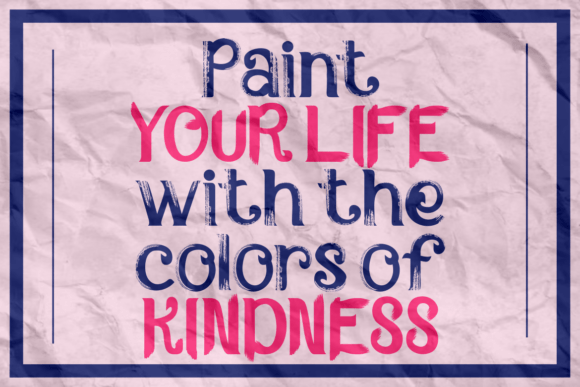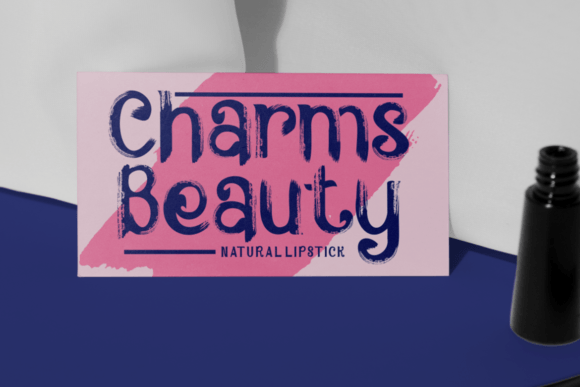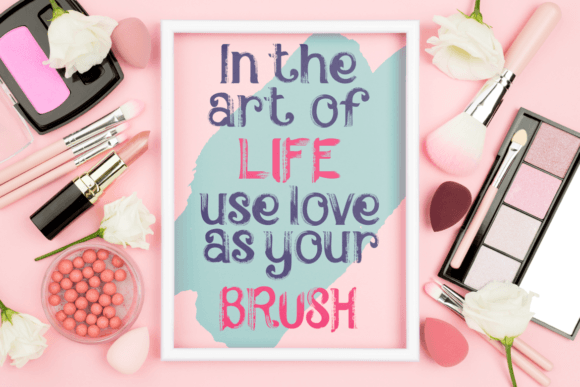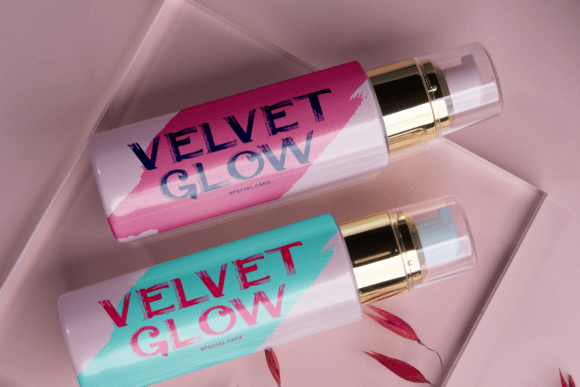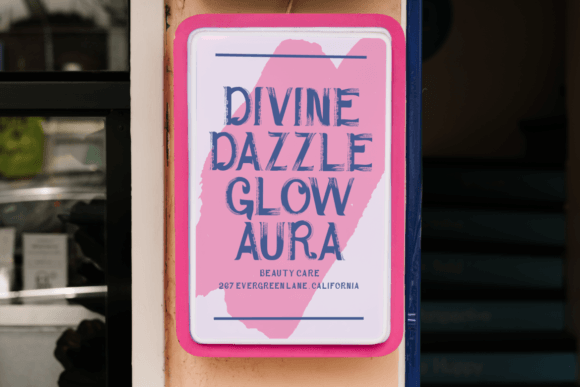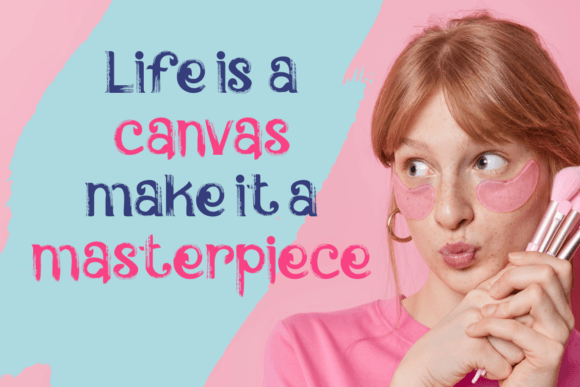
Unleash Your Creativity with Brush Blitz Font
Are you tired of using the same old fonts that lack personality and flair? Look no further than Brush Blitz – Brush Font, a typeface that embodies the spirit of artistic freedom. This font is not just a set of characters; it’s a toolkit for expression, designed to inject life and movement into your projects. With its bold, textured strokes that echo the dynamism of brushwork, Brush Blitz is perfect for those who want their words to stand out with an authentic, handcrafted feel.
The Power of Brush Blitz
Brush Blitz is a font that dances across the page, making it ideal for a variety of design projects. Its unique, handcrafted aesthetic makes it perfect for:
- Logos that need to make an impact: With its bold, eye-catching strokes, Brush Blitz is sure to grab attention and leave a lasting impression.
- Branding that dares to be different: If you’re looking for a way to stand out from the crowd and showcase your brand’s personality, Brush Blitz is the perfect choice.
- Crafting that requires a personal touch: Whether you’re designing handmade cards, invitations, or packaging, Brush Blitz adds a touch of warmth and humanity to your projects.
Whether you’re a designer, crafter, or DIY enthusiast, Brush Blitz offers endless creative possibilities. Use it to:
- Create stunning invitations: Add a personal touch to your invitations and make them truly special with Brush Blitz.
- Design eye-catching packaging: Make your products stand out on store shelves with bold, eye-catching packaging that showcases your brand’s personality.
- Craft inspiring posters: Use Brush Blitz to create posters that shout from the rooftops and grab attention.
Beyond Traditional Design
Brush Blitz is not just limited to traditional design projects. It’s also perfect for:
- Business communications that need a touch of humanity: Add a personal touch to your business communications and make them more relatable with Brush Blitz.
- Greeting cards that convey warmth: Create heartfelt greeting cards that speak from the heart with Brush Blitz.
- Children’s books that inspire imagination: Use Brush Blitz to create engaging and interactive children’s books that inspire creativity and imagination.
Magazine Layouts and More
Brush Blitz is also perfect for magazine layouts, adding a touch of personality and flair to your designs. Use it to:
- Create eye-catching headlines: Grab attention with bold, eye-catching headlines that showcase your brand’s personality.
- Add a personal touch to articles: Use Brush Blitz to add a personal touch to your articles and make them more relatable.
- Design engaging pull-quotes: Use Brush Blitz to create engaging pull-quotes that add a touch of personality to your designs.
Why Choose Brush Blitz?
So why choose Brush Blitz over other fonts? Here are just a few reasons:
- Unique and authentic aesthetic: Brush Blitz offers a unique and authentic aesthetic that’s perfect for designers and crafters who want to stand out from the crowd.
- Versatile and flexible: Brush Blitz is a versatile and flexible font that can be used for a wide range of design projects.
- Easily readable: Despite its bold and textured strokes, Brush Blitz is easily readable, making it perfect for body text and headlines.
Get Creative with Brush Blitz